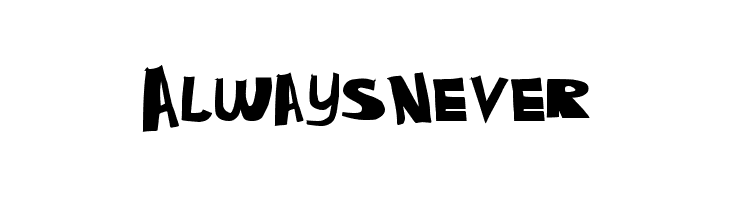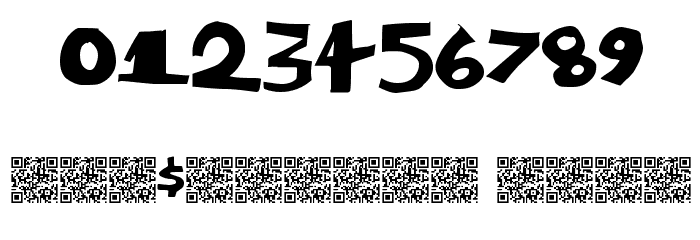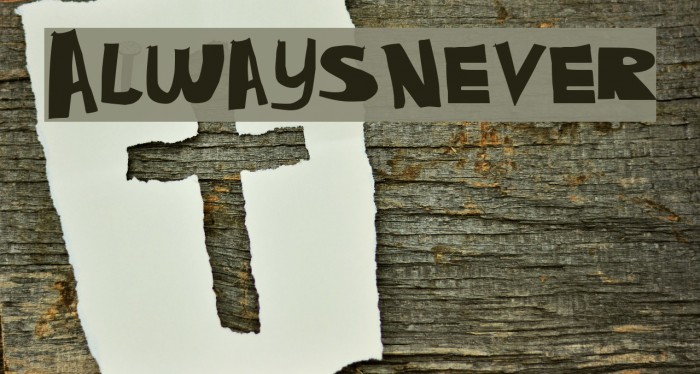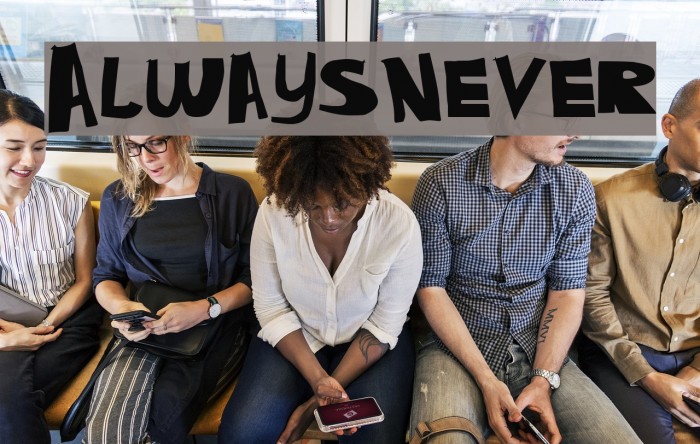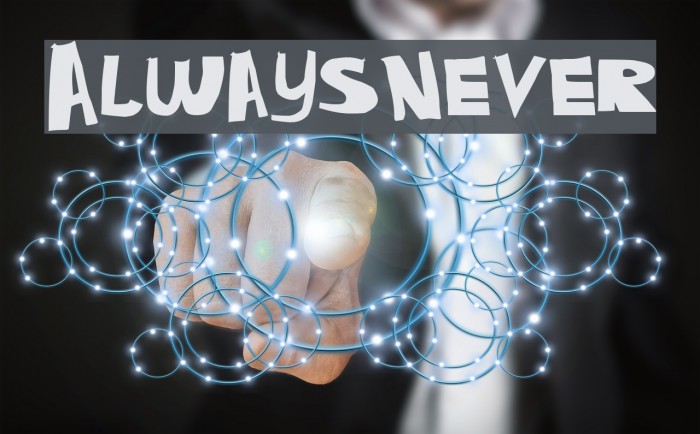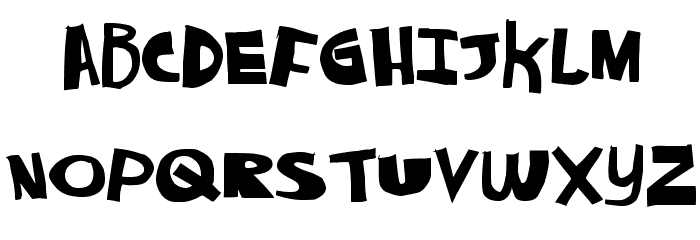
AlwaysNever Font
AlwaysNever Description
This font exhibits a playful and whimsical style, characterized by its bold and irregular letterforms. The uppercase and lowercase letters have a hand-drawn, cartoonish appearance, with exaggerated curves and varying stroke widths that add to its dynamic and lively feel. The numbers and special characters maintain this quirky aesthetic, making the font suitable for creative and informal applications. Its unique design is eye-catching and can convey a sense of fun and creativity, making it ideal for projects that aim to stand out with a distinctive and unconventional look.
A playful, bold font with irregular, hand-drawn letterforms from Cartoon fonts.
- Proposed Projects: Ideal for children's books, comic strips, playful branding, and creative posters.
- Overall Style: Playful, Whimsical
- Use Case: Headlines, Posters, Creative Branding